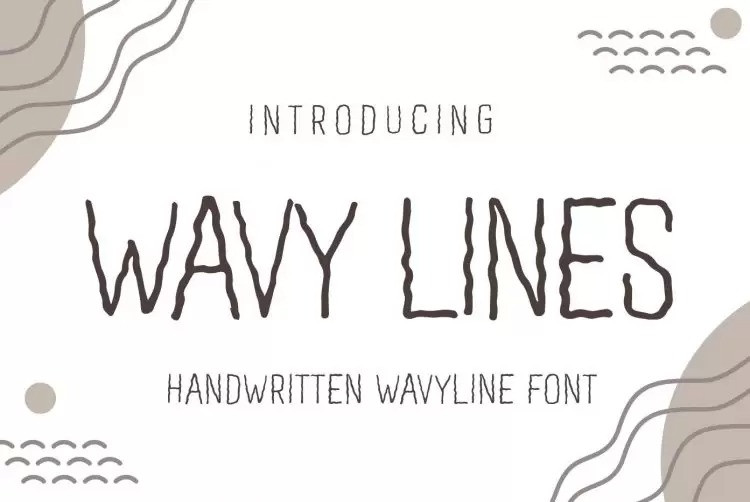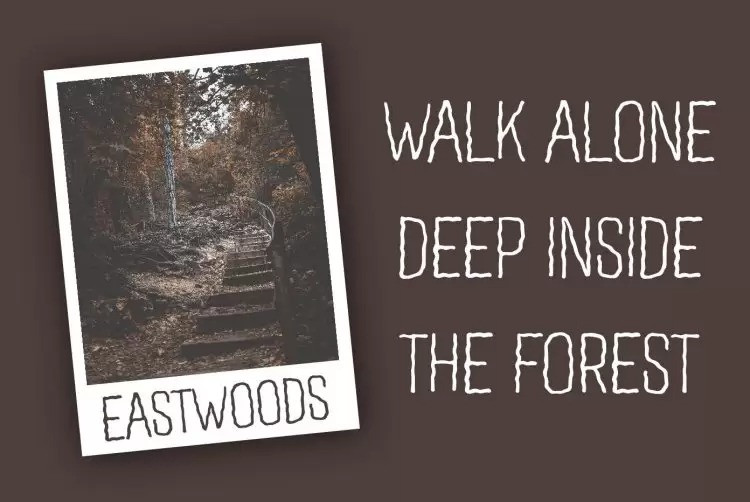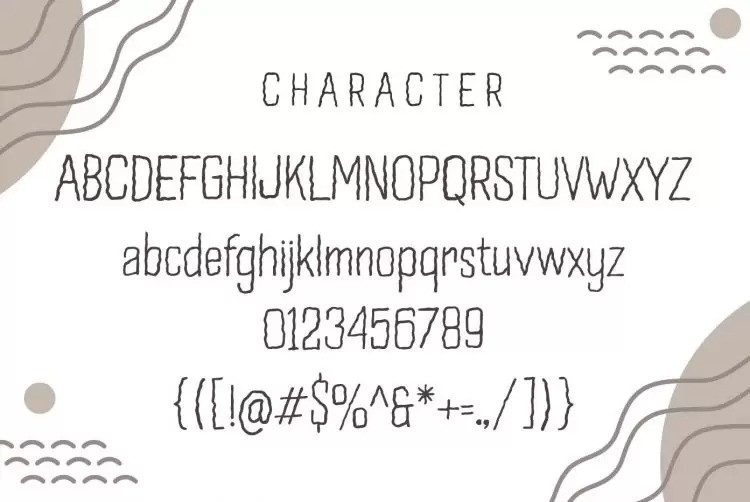
Wavy Lines Display Font
Introducing Wavy Lines – wave line font in uppercase and lowercase. This font can use to support your project to make design more beautiful. Wavy Lines suitable for book cover, merchandise, poster, title, quotes, and many more!